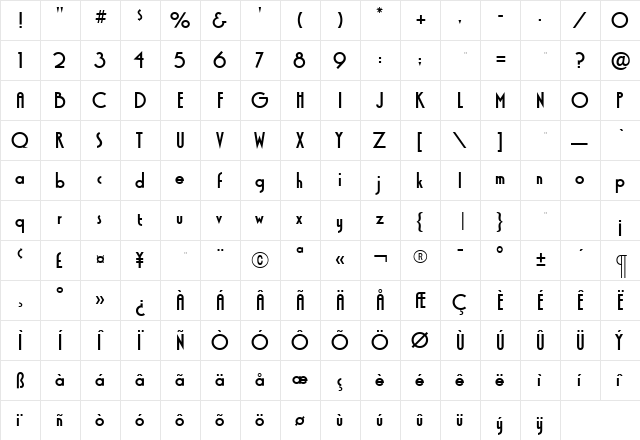
XctasySansRR Bold Regular
Design Context for XctasySansRR Bold Typeface
XctasySansRR Bold takes a measured approach to typography — its balanced proportions and neutral character make it a reliable workhorse for both digital and print work. Its bold stroke weight gives it real presence on the page.